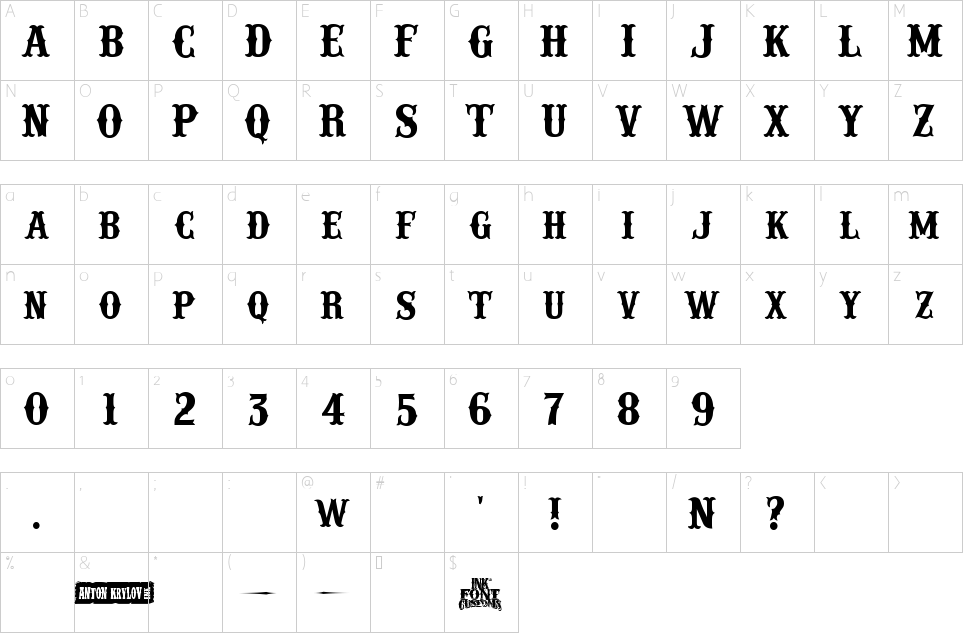
Ifc Railroad Font
Ifc Railroad Font - Web download the ifc railroad font by anton krylov, a free font for personal use. The font is inspired by the lettering of the ifc.
Web download the ifc railroad font by anton krylov, a free font for personal use. The font is inspired by the lettering of the ifc.
The font is inspired by the lettering of the ifc. Web download the ifc railroad font by anton krylov, a free font for personal use.
The Font Is Inspired By The Lettering Of The Ifc.